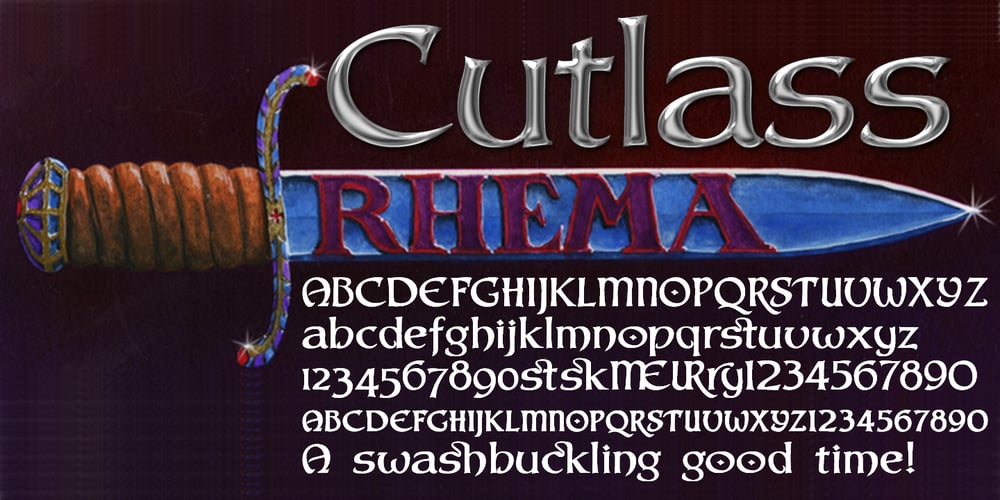
Cutlass
Cutlass font
Cutlass Font Family was designed by David Bergsland and published by Hackberry Font Foundry. Cutlass contains 1 styles and family package options. Cutlass was just for fun. A year ago or so [2009, maybe], someone on typophile showed a scan of the word “Ciruelo”. I liked it. Those were the only letters I had and no one ever came up with the name of the original font that I saw. It doesn’t matter as I went far afield as I designed, as usual. It’s just a swashbuckling bit of fun. OpenType 476 Glyphs from my usual set minus the superior and inferior figures. Enjoy!